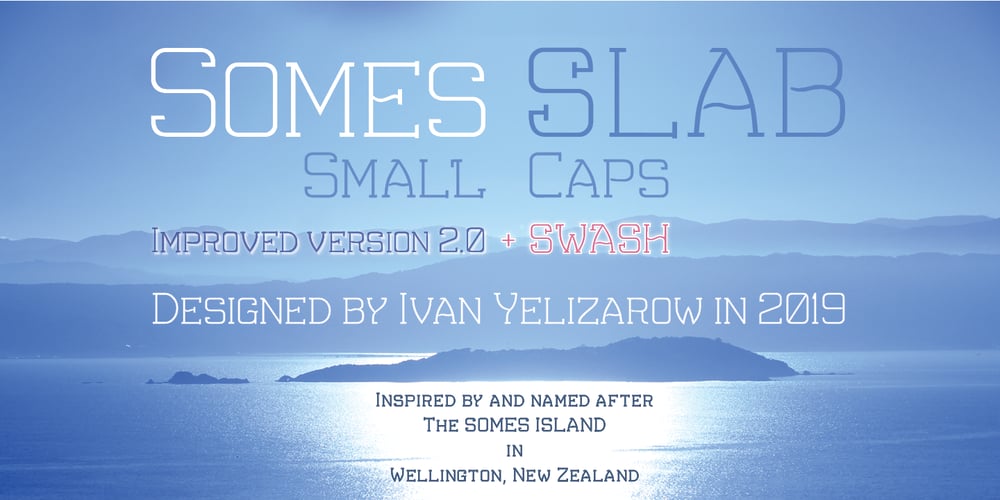
Somes Slab
Somes Slab font
Somes Slab Font Family was designed by Ivan Yelizarow and published by Ie Fonts. Somes Slab contains 1 styles and family package options. Somes Slab Small Caps Extra-Light Display IMPROVED VERSION 2.0 + SWASH Somes Slab is a slab serif small caps designed by Ivan Yelizarow in 2019, inspired and named after The Matiu/Somes Island in Wellington, New Zealand. Its distinctive feature is a combination of wavy curves with slab serifs that makes it ideal for titling, headlines, subheads, spotlighting a short few-paragraph text that needs detachment. Best at Display sizes. Complete classification: Wavy Squircle Slab-Serif Small Caps Extra-Light Display.